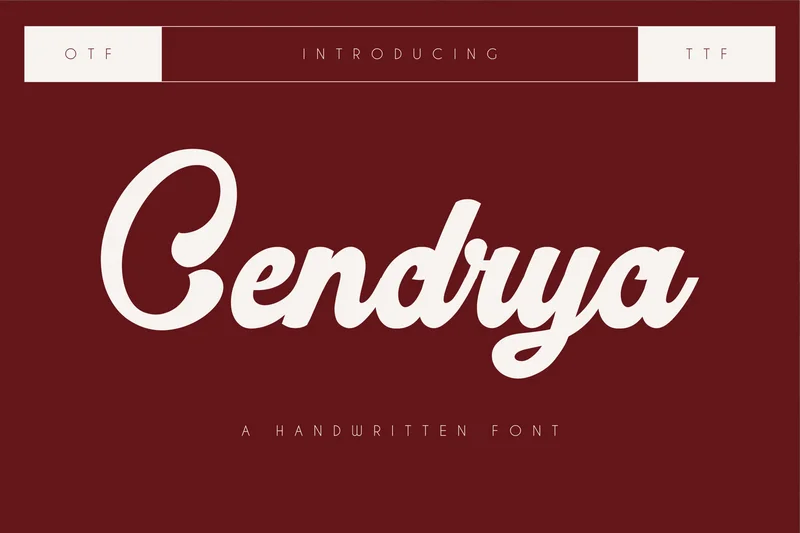
Cendrya – Bold Script Font
Cendrya is a script font that likely has a handwritten or cursive style, which gives it a more personal, fluid, and artistic touch. Script fonts are typically used to convey elegance, creativity, and a sense of warmth, as they often mimic the natural flow of human handwriting. The smooth, flowing lines in Cendrya might evoke feelings of sophistication or informal charm, depending on how it’s used.